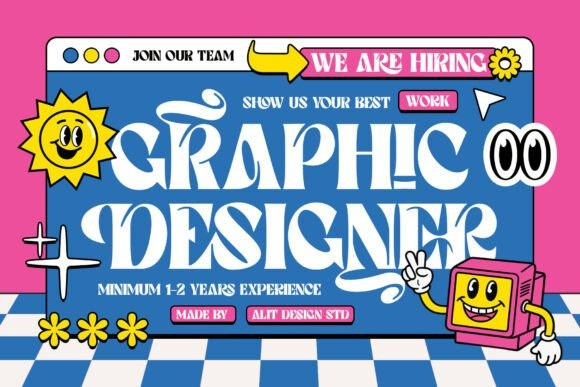
Blode starkly Font
Blode starkly Font is a fantastic font—it perfectly captures that trending “Retro-Futuristic Hippie” and “90s Psychedelic” aesthetic. Since this style is very popular on platforms like Creative Market and Behance, the description should focus on its versatility, its massive glyph count, and its fun personality.